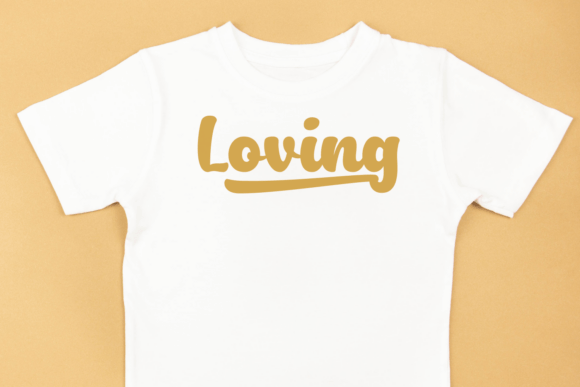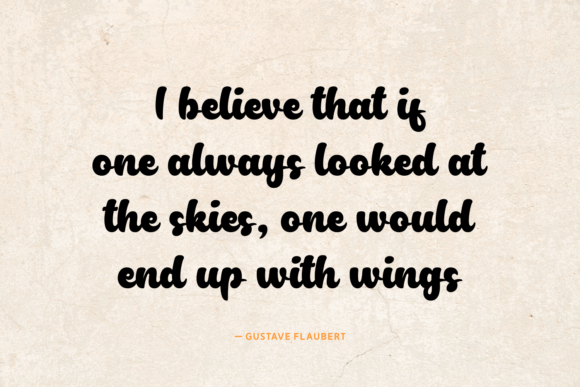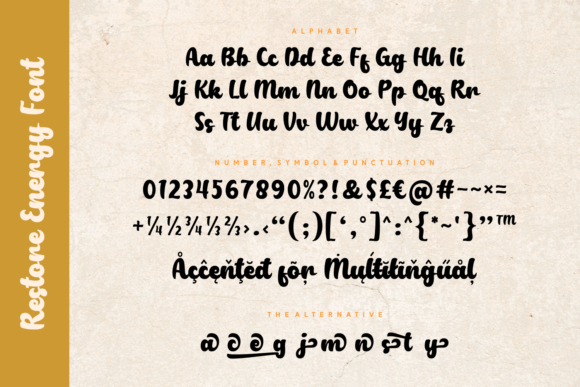
Introduction to Restore Energy Font
Have you ever found yourself stuck in a creative rut, staring at a blank page with no inspiration in sight? It’s a feeling we’ve all been there, and it’s exactly this moment that the right design resource can make all the difference. For designers looking to add a bold and dynamic touch to their work, the Restore Energy Font is a game-changer.
With its thick strokes, playful curves, and stylish swashes, this high-quality font radiates energy and confidence, making it the perfect addition to any creative project. Whether you’re designing a logo, creating a poster, or building a brand, the Restore Energy Font adds a powerful yet approachable touch that’s sure to grab attention. And the best part? It’s available for free download with a transparent background, making it easy to incorporate into your designs.
Key Features of Restore Energy Font
- Unique Design: Restore Energy Font features a modern and vibrant design perfect for creative projects that require a high-energy feel.
- Perfect for Creative Projects: Restore Energy Font is ideal for use in creative projects such as logo design, branding, and advertising, where a high-energy feel is required.
- Easy to Customize: The font’s modern design makes it easy to customize and manipulate, allowing designers to create unique and eye-catching text effects.
Honest Review: Restore Energy Font
I recently had the chance to dive into the Restore Energy Font, and I must say, it’s an impressive addition to any design resource. As a designer, I’m always on the lookout for high-quality fonts that can elevate my creative projects.
One of the standout features of this font is its versatility. It comes in a range of weights and styles, making it easy to use in a variety of contexts. The transparent background option is also a nice touch, allowing for seamless integration into any design.
- ✨ Wide range of weights and styles
- ✨ Versatile and easy to use
- ✨ Transparent background option
- ✨ High-quality design
- ⚠️ Limited character set
- ⚠️ Not ideal for complex typography
Overall, I’d say the Restore Energy Font is a solid choice for designers looking for a high-quality, easy-to-use font. While it may not be perfect, its strengths far outweigh its limitations, making it a valuable addition to any design resource.
Restore Energy Font
For the best results, use the Restore Energy Font in conjunction with other high-quality design elements, such as images and graphics. Experiment with different font sizes and styles to create a visually appealing design.
The Restore Energy Font is perfect for use in a variety of creative projects, including blog posts, social media graphics, and even business cards. Its modern and energetic feel makes it ideal for use in any design project where you want to convey a sense of excitement and dynamism.